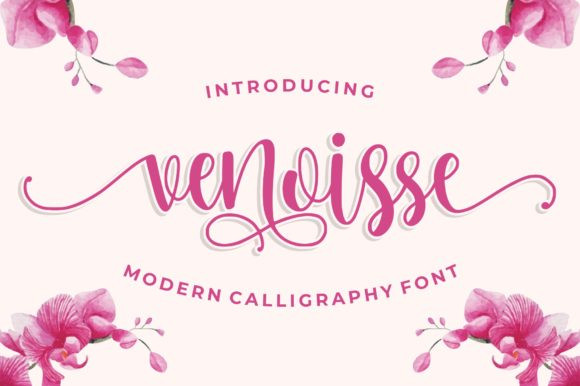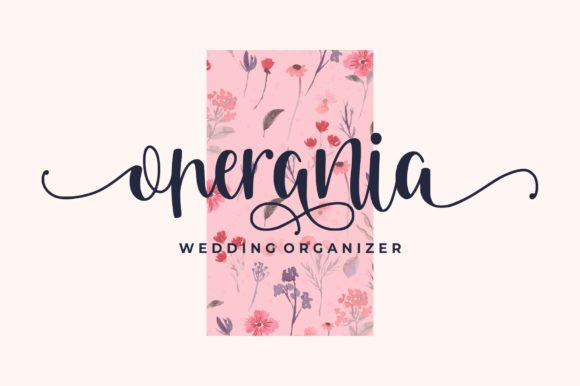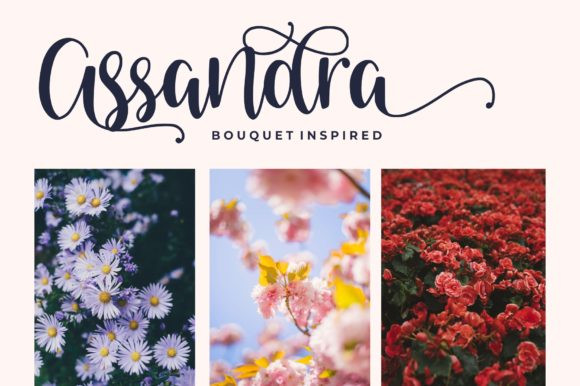
Venoisse Font
Venoisse is a beautiful handwritten font inspired by classic typography and brings its own unique style to any design project. Fall in love with its authentic feel and use it to create gorgeous wedding invitations, beautiful stationary art, eye-catching social media posts, and cute greeting cards.